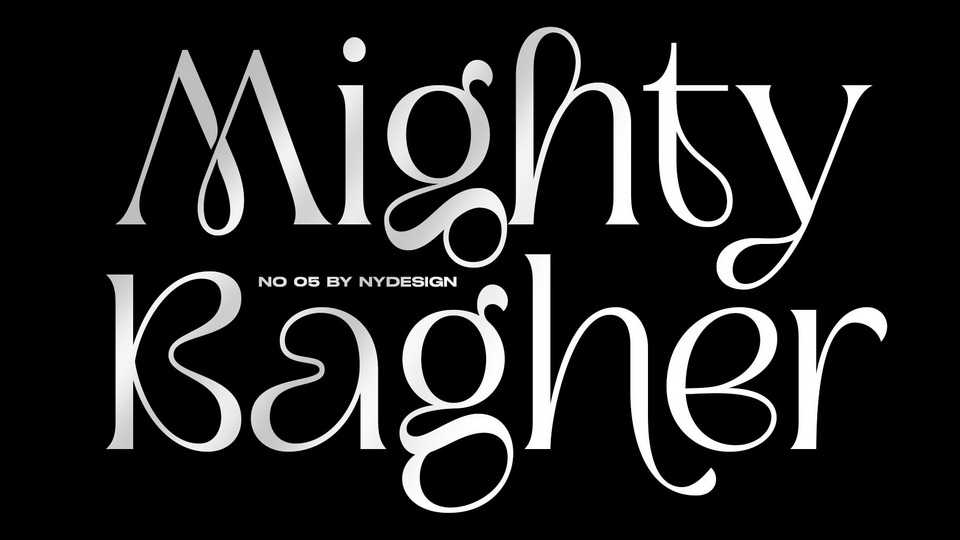
Download Mighty Bagher font, a modern serif typeface made with accurate accuracy. With alternative characters and ligatures Mighty Bagher font can make your work very special.
Designer: Dean Nugraha